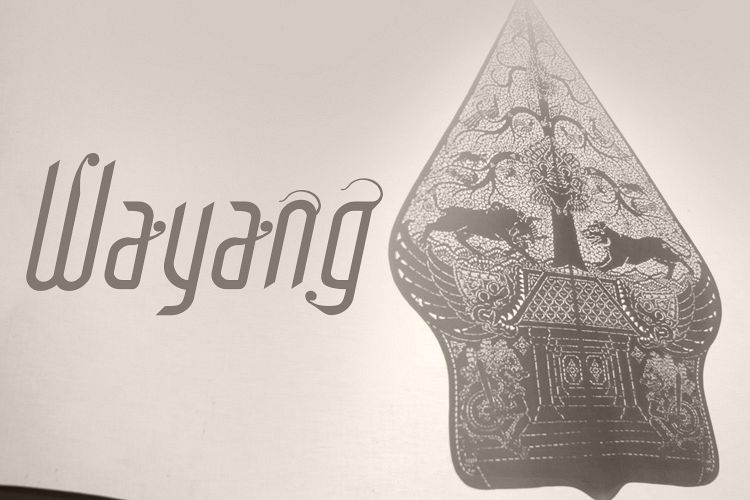
FTF Petruk Poenakawan
English: Inspired by the two cultures of Indonesia, puppets and ancient Javanese script. Font created this unique and very exclusive.
Indonesia: Terinspirasi dari 2 budaya Indonesia, wayang (tokoh pewayangan Petruk di Punakawan) dan aksara jawa kuno.
Terciptalah font unik ini dan sangat ekslusif.